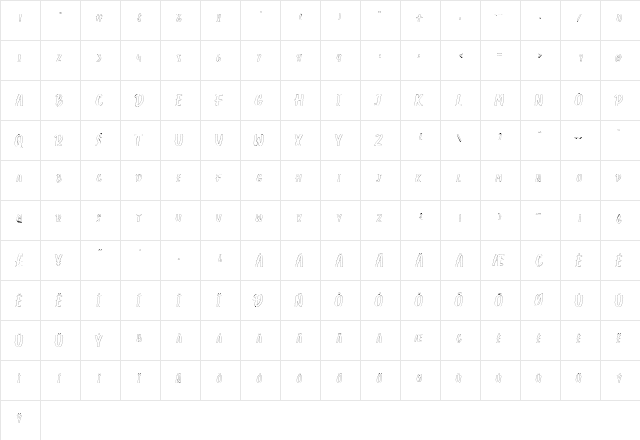
Creshex Brush Outline Font Preview
Design Context for Creshex Brush Outline Typeface
Creshex Brush Outline brings a calligraphic fluidity to the page — its connecting strokes and expressive curves give it an unmistakably human quality.